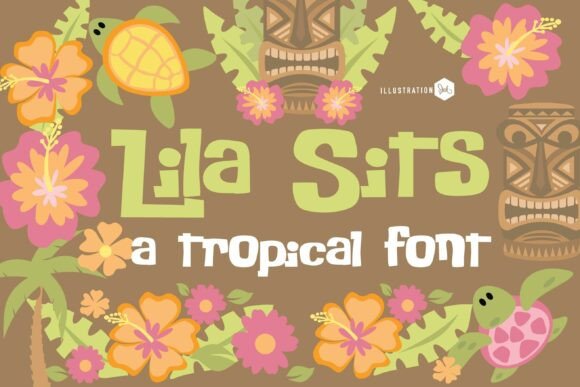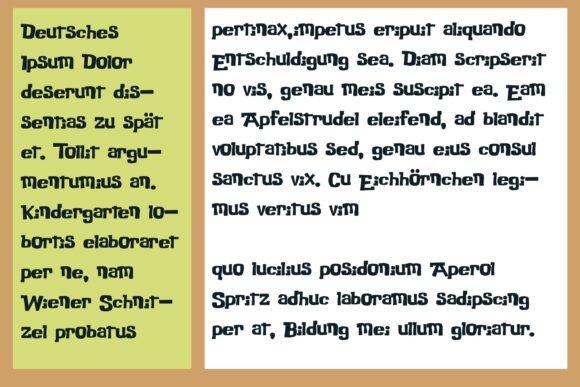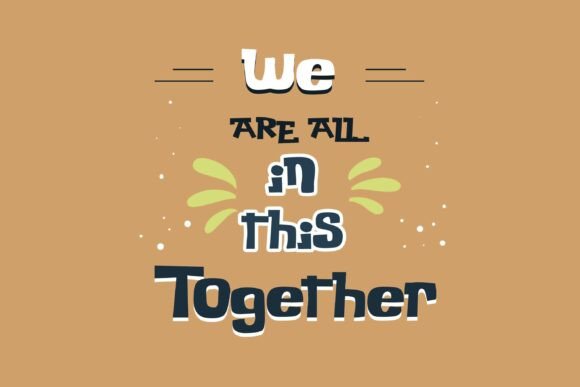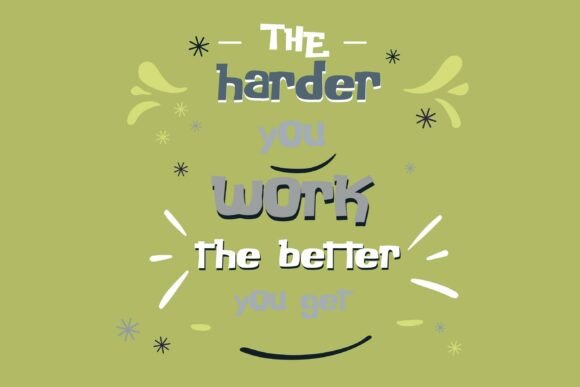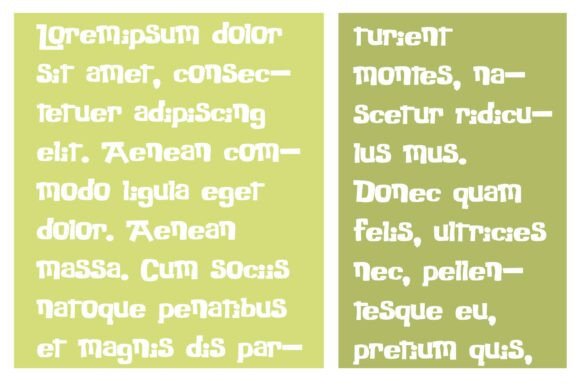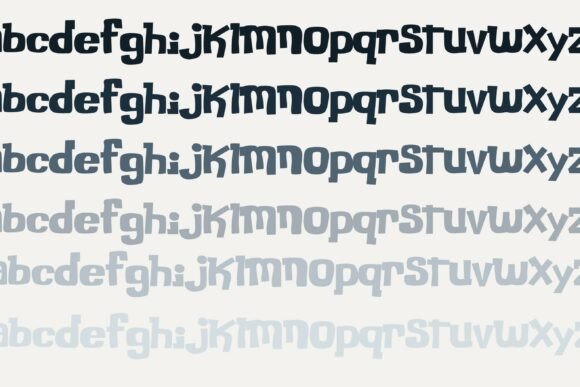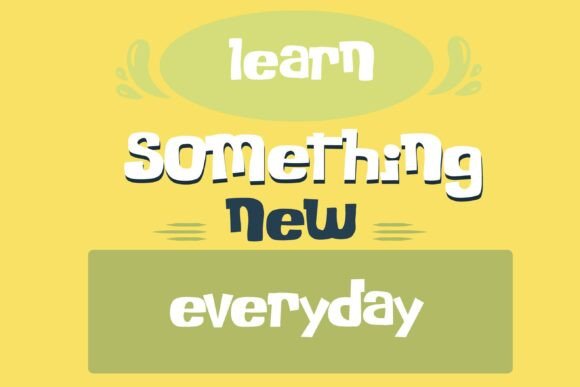
Pn Lila Sits Fn Font
Lila Sits is a playful tropical font with a hand-cut, irregular feel that mimics paper collage or woodblock printing. Its bold, chunky letterforms feature uneven edges, unexpected cuts, and subtle asymmetries, lending it a lively, organic charm. The font blends uppercase and lowercase elements in quirky ways, enhancing its whimsical personality. Its overall shape and style evoke tiki culture, beach signs, and children’s craft projects.
Perfect for fun, festive designs, Lila Sits shines in settings like summer parties, tropical branding, kids’ products, and island-themed decor—bringing an upbeat, sun-soaked energy to any text.